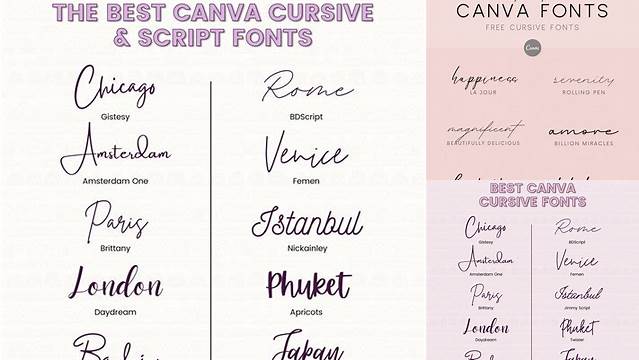
Legible Cursive Fonts: Top Picks On Canva For Great Designs
Hey guys! Ever find yourself scrolling through Canva, desperately searching for that perfect cursive font that's both elegant and, you know, actually readable? We've all been there! Cursive fonts can add a touch of sophistication and personality to your designs, but let's be real, some of them look like a tangled mess of spaghetti. So, if you're looking to elevate your projects without sacrificing clarity, you've come to the right place. This guide will walk you through some of the best legible cursive fonts Canva has to offer, helping you make your designs shine.
Why Legibility Matters in Cursive Fonts
Before we dive into specific fonts, let's talk about why legibility is so crucial, especially when it comes to cursive. Cursive fonts, by their very nature, are designed to mimic handwriting. This means they often feature flowing strokes, loops, and flourishes that connect letters together. While this can create a beautiful, artistic effect, it can also lead to readability issues if the font is poorly designed or used in the wrong context. Think about it – what's the point of using a gorgeous font if your audience can't actually read what it says?
In the realm of design, communication is king. Your message needs to be clear and easily understood, whether you're creating a logo, a wedding invitation, or a social media graphic. A cursive font that's difficult to decipher can distract from your message and even turn people away. That's why choosing a legible cursive font is paramount. You want something that captures the elegance and personality of cursive without sacrificing clarity. This involves considering factors like the spacing between letters, the thickness of the strokes, and the overall shape of the characters. A well-designed legible cursive font will strike a balance between style and readability, ensuring that your message is both beautiful and effective. Furthermore, legibility impacts the user experience significantly. Imagine landing on a website or opening a document where the text is a swirling, indecipherable script. Frustration levels would skyrocket, and the message would be lost in the visual clutter. By prioritizing legible fonts, you’re showing respect for your audience’s time and attention. You're making it easy for them to engage with your content, absorb your message, and appreciate the aesthetic without straining their eyes. So, when selecting a cursive font, always ask yourself: is this pretty, and can people actually read it? If the answer to both is yes, you're on the right track!
Top Legible Cursive Fonts on Canva
Okay, let's get to the good stuff! Canva boasts a vast library of fonts, and sifting through them can feel like searching for a needle in a haystack. But don't worry, I've done the legwork for you. Here are some of the top legible cursive fonts you can find on Canva, perfect for adding that elegant touch to your projects:
Great Vibes: This is a classic choice for a reason. Great Vibes offers a flowing, elegant script with a high degree of legibility. The letters are well-formed and spaced, making it easy to read even in longer texts. It’s a fantastic option for invitations, headings, and logos where you want a touch of sophistication.
Dancing Script: As the name suggests, Dancing Script has a playful, whimsical feel. It's a modern cursive font with a bouncy baseline and slightly condensed letters. While it's more casual than Great Vibes, it still maintains excellent legibility, especially in headings and short phrases. It’s perfect for projects that need a friendly and approachable vibe.
Playlist Script: If you're looking for something with a bit of an edge, Playlist Script is a great choice. This hand-drawn script has a slightly rough texture, giving it a natural, authentic feel. Despite its imperfections, it remains highly legible, thanks to its clear letterforms and generous spacing. It’s ideal for designs that need a personal touch, such as blog headers or social media quotes.
Pacifico: Pacifico is a smooth, rounded cursive font that evokes a vintage feel. It’s inspired by the surf culture of the 1950s, giving it a relaxed and friendly vibe. The letters are clear and easy to read, making it a versatile choice for a variety of projects. It works well for logos, posters, and even body text in shorter paragraphs. When choosing fonts like Pacifico, consider the overall tone and style of your project. Its retro vibe might not be suitable for all contexts, but in the right setting, it can add a unique charm.
** অথেনটিক Script:** This is a monoline script font with a clean and modern aesthetic. Its simplicity makes it incredibly legible, even at smaller sizes. অথেনটিক Script is a great option for projects where readability is paramount, such as website headers or business cards. It’s a versatile font that can be used in a wide range of designs, from formal to casual.
These fonts are just a starting point, guys. Canva has tons of other awesome cursive fonts to explore. The key is to experiment and find what works best for your specific project. Remember to always prioritize legibility, and don't be afraid to mix and match fonts to create unique and eye-catching designs.
Tips for Using Cursive Fonts Effectively on Canva
Now that you know some great legible cursive fonts, let's talk about how to use them effectively in your designs. Just like any design element, cursive fonts should be used thoughtfully and strategically to achieve the desired impact. Here are some tips for using cursive fonts like a pro on Canva:
Pairing is Key: Cursive fonts often work best when paired with a simpler, more legible sans-serif or serif font. Think of it like this: the cursive font adds the flair, while the simpler font provides the clarity. For example, you could pair Great Vibes with Open Sans or Dancing Script with Montserrat. This creates a visual hierarchy and ensures that your design is both stylish and easy to read. Experiment with different pairings to find combinations that resonate with your brand and message. A well-chosen font pairing can elevate your design from good to great.
Conclusion: Choosing the Perfect Cursive Font
So there you have it, guys! Navigating the world of cursive fonts on Canva can be a breeze with these tips and recommendations. Remember, the best legible cursive fonts are those that strike a harmonious balance between style and readability. Consider your project’s context, pair fonts wisely, and always prioritize clarity. By avoiding common mistakes and embracing thoughtful design principles, you can create stunning visuals that captivate and communicate effectively. Now go forth and create some beautiful designs!